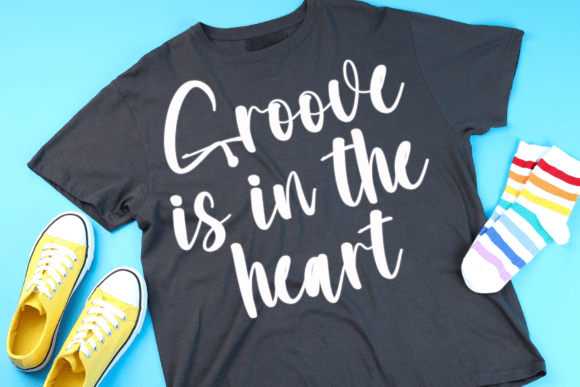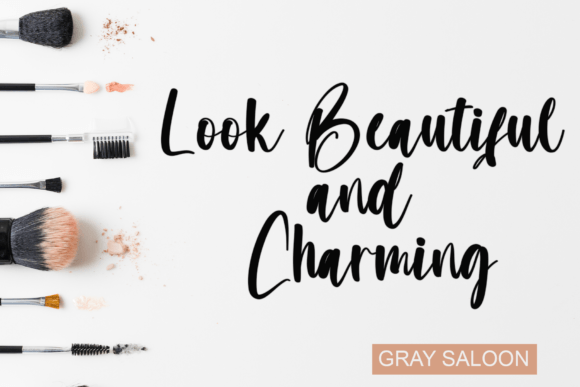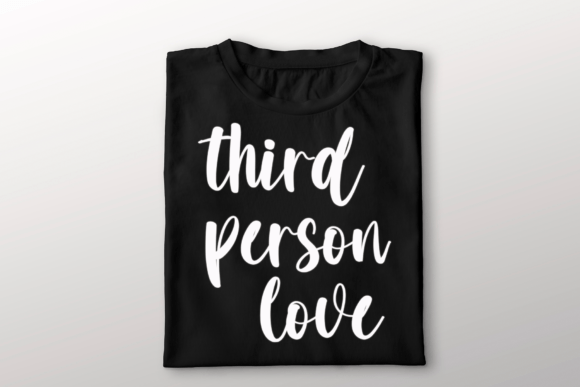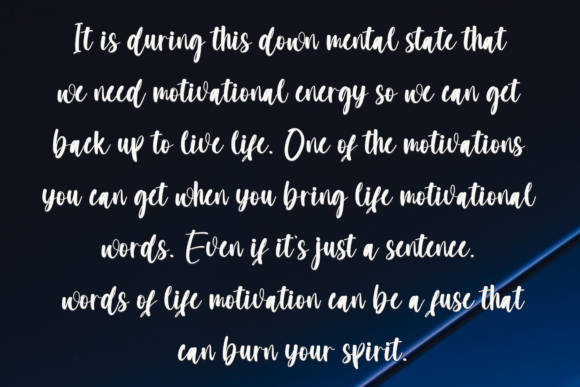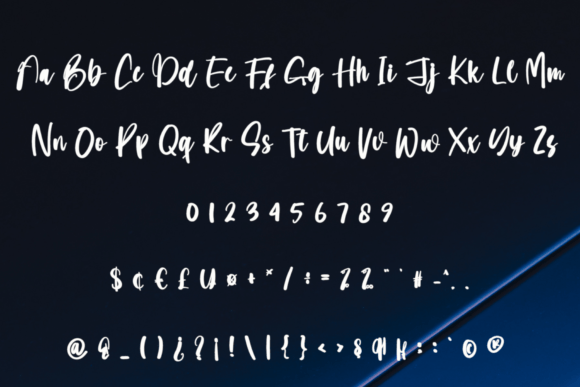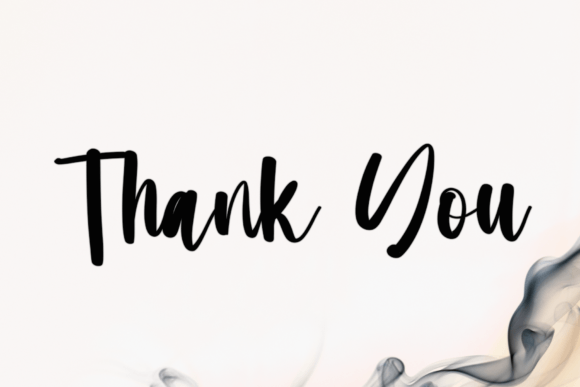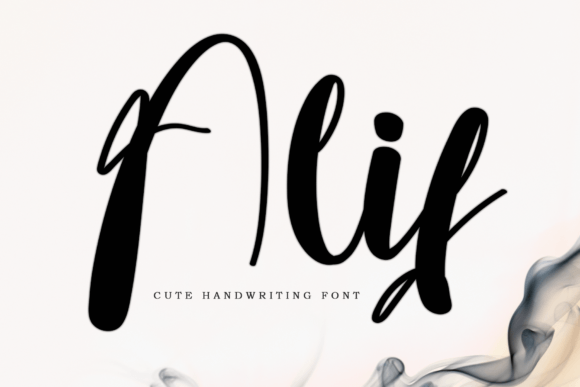
Introducing Alif Font: The Sweet and Beautiful Handwritten Font
Are you a designer or crafter looking for a unique and elegant font to elevate your design projects? Look no further than Alif Font, a sweet and beautiful handwritten font that is sure to add a touch of luxury to any design. In this article, we’ll take a closer look at Alif Font, its features, and how it can be used to create stunning designs.
What is Alif Font?
Alif Font is a modern handwritten font that features characters that dance along the baseline, creating a sense of movement and fluidity. This beautiful font is perfect for designers and crafters who want to add a personal touch to their designs. With its elegant and refined appearance, Alif Font is ideal for a wide range of design projects, from branding and packaging to wedding invitations and social media graphics.
Key Features of Alif Font
So, what makes Alif Font so special? Here are some of its key features:
- Handwritten style: Alif Font has a beautiful handwritten style that gives it a personal and unique touch.
- Dancing characters: The characters in Alif Font dance along the baseline, creating a sense of movement and fluidity.
- Luxury feel: Alif Font has a luxurious feel that makes it perfect for high-end designs.
- Versatile: Alif Font can be used for a wide range of design projects, from digital designs to print materials.
How to Use Alif Font in Your Designs
Alif Font is easy to use and can be incorporated into your designs in a variety of ways. Here are some ideas to get you started:
- Branding and packaging: Use Alif Font to create elegant and sophisticated branding and packaging designs.
- Wedding invitations: Add a touch of luxury to your wedding invitations with Alif Font.
- Social media graphics: Use Alif Font to create eye-catching social media graphics that stand out from the crowd.
- Digital designs: Alif Font can be used for digital designs such as website headers, email newsletters, and more.
Tips for Pairing Alif Font with Other Fonts
Pairing Alif Font with other fonts can create a unique and visually appealing design. Here are some tips for pairing Alif Font with other fonts:
- Pair with a sans-serif font: Pairing Alif Font with a sans-serif font such as Arial or Helvetica can create a nice contrast and add visual interest to your design.
- Pair with a script font: Pairing Alif Font with another script font can create a beautiful and elegant design.
- Experiment with font sizes: Experimenting with different font sizes can help create a visually appealing hierarchy in your design.
Alif Font is a beautiful and elegant handwritten font that can add a touch of luxury to any design project. With its unique features and versatility, Alif Font is perfect for designers and crafters who want to create stunning designs. Whether you’re looking to create branding and packaging designs, wedding invitations, or social media graphics, Alif Font is a great choice. So why not give Alif Font a try and see how it can elevate your designs?
Overall, Alif Font is a beautiful and elegant handwritten font that can add a touch of luxury to any design project. Its unique features and versatility make it a great choice for designers and crafters who want to create stunning designs.